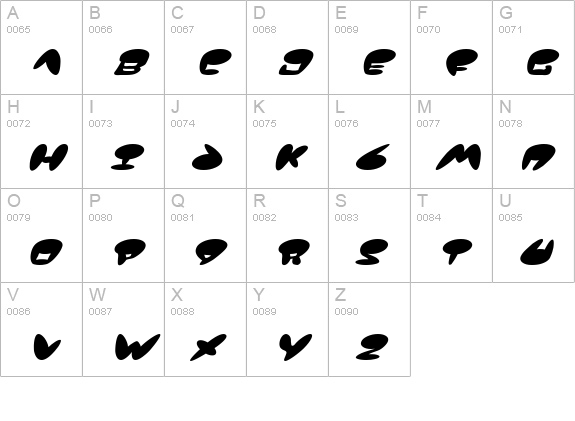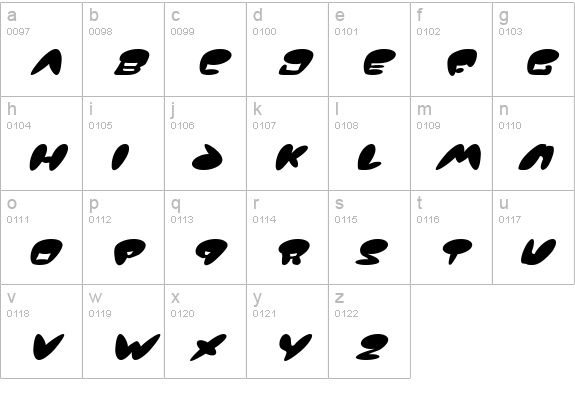
Jackson Italic Font Details
Jackson Italic is a distinctive, italic variant in the Jackson typeface family \xE2\x80\x94 well suited to design and typography projects.
Introducing Jackson Italic, a striking and versatile font that exudes elegance and modernity. With its sleek and slanted letterforms, this font adds a touch of sophistication to any design project. The italicized style of Jackson Italic brings a sense of movement and dynamism, making it perfect for conveying a sense of energy and flair. This font is not only visually captivating but also incredibly versatile, making it suitable for a wide range of design applications. Whether you're designing a logo, creating a stylish poster, or crafting a captivating website, Jackson Italic is sure to make a lasting impression. One of the best parts about Jackson Italic is that it is free to download at FontsMarket.com. Yes, you read that right! This exceptional font is freely available, allowing you to bring your design visions to life without any financial constraints. So why wait? Enhance your creative projects with the bold and beautiful Jackson Italic – a font that effortlessly combines style and substance.